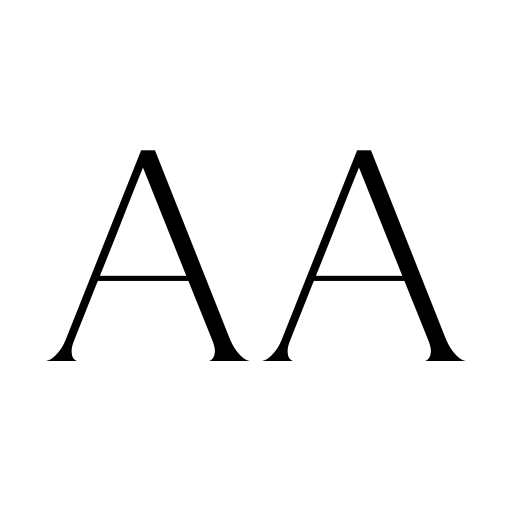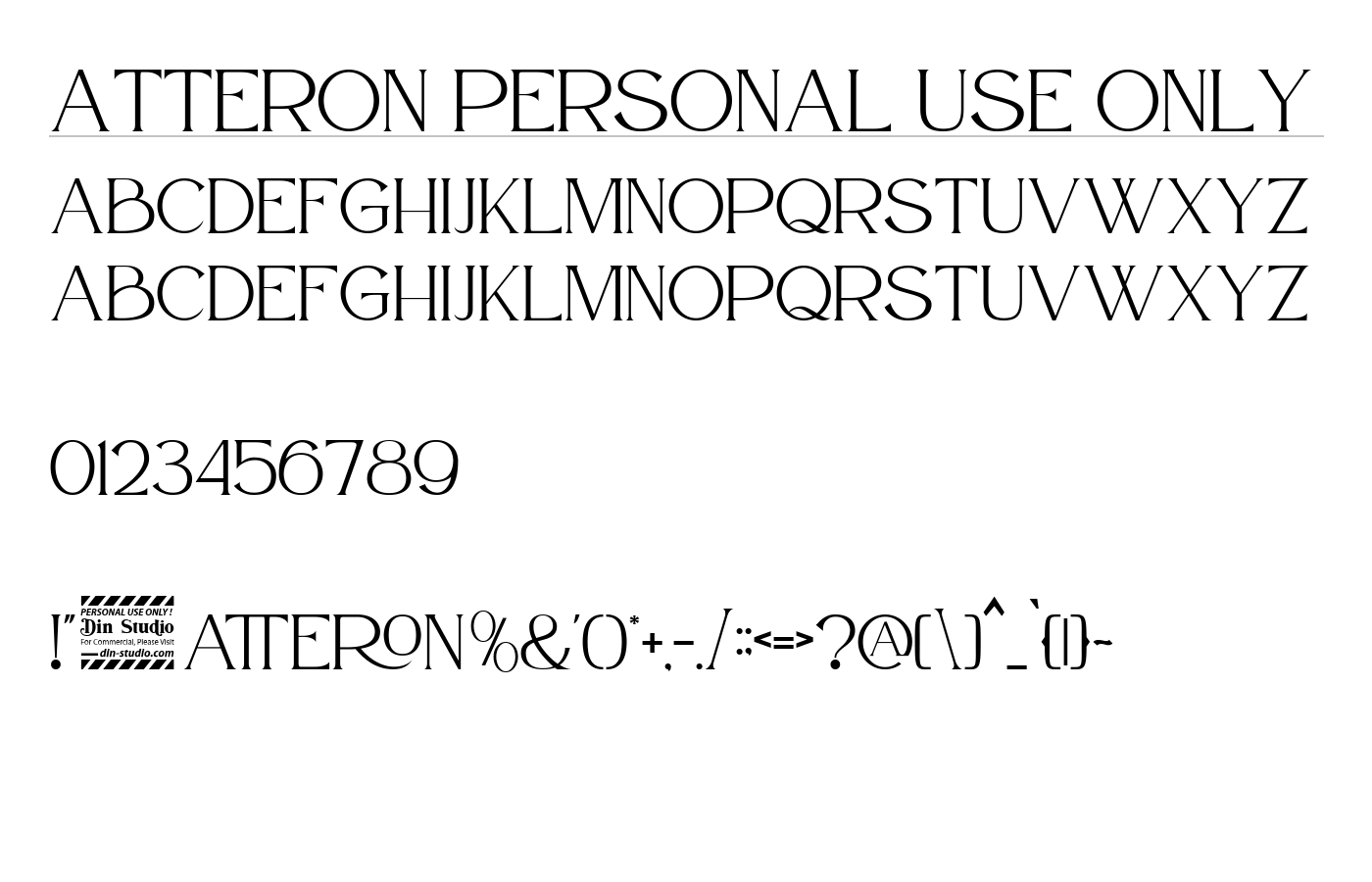
Atteron is a sleek serif font with a high contrast between its thin and thick strokes, featuring elegant, narrow letterforms and distinctive sharp serifs that evoke a refined, modern sophistication. Its tall x-height and clean lines make it ideal for luxury branding, editorial headlines, and stylish packaging where a touch of class and clarity is desired. This font’s graceful personality lends itself well to projects seeking a contemporary yet timeless feel.
Atteron Personal Use Only Font
About Atteron Personal Use Only Font